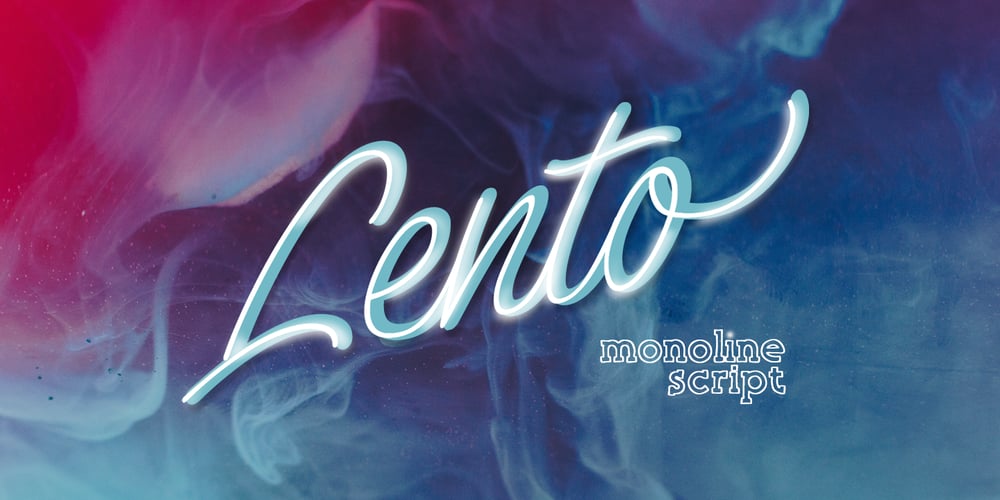
Lento Font Family was designed by Alex Etewut and published by Etewut. Lento contains 5 styles and family package options. Introducing Lento monoline script with happy end! 5 styles are included: regular, double, rough, display and bold. – Basic latin – Extended latin – Ligatures – Alternative symbols – Initial and Final symbols Enjoy Lento!